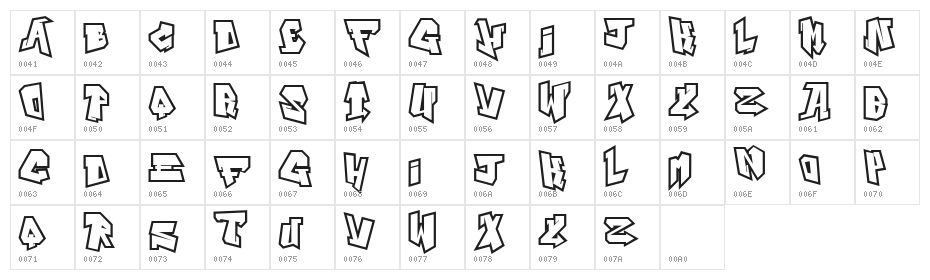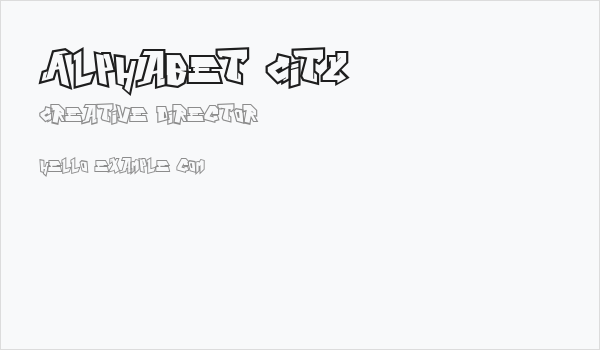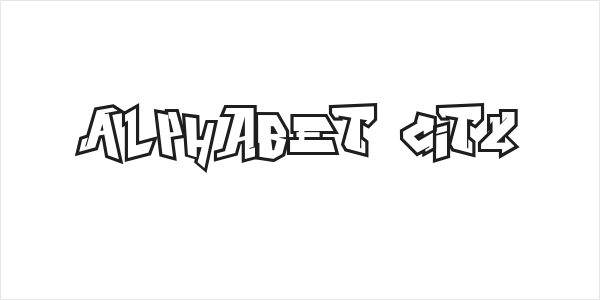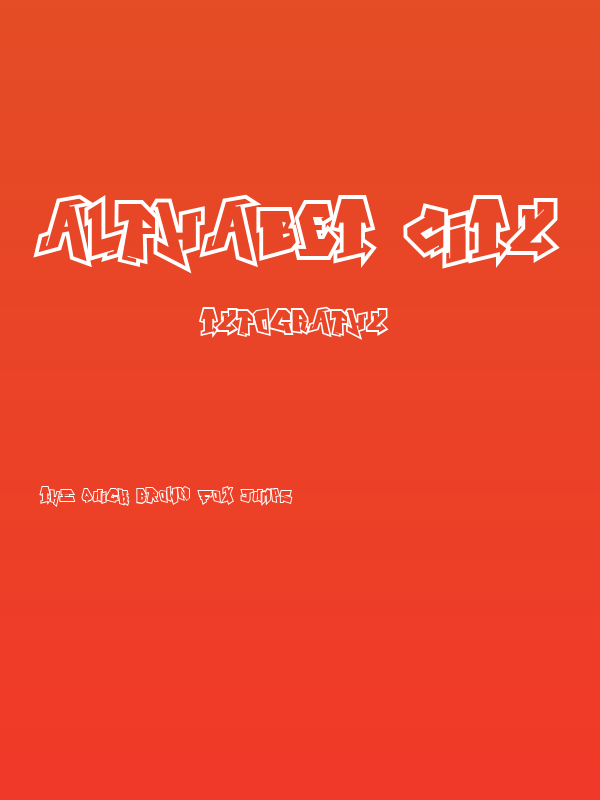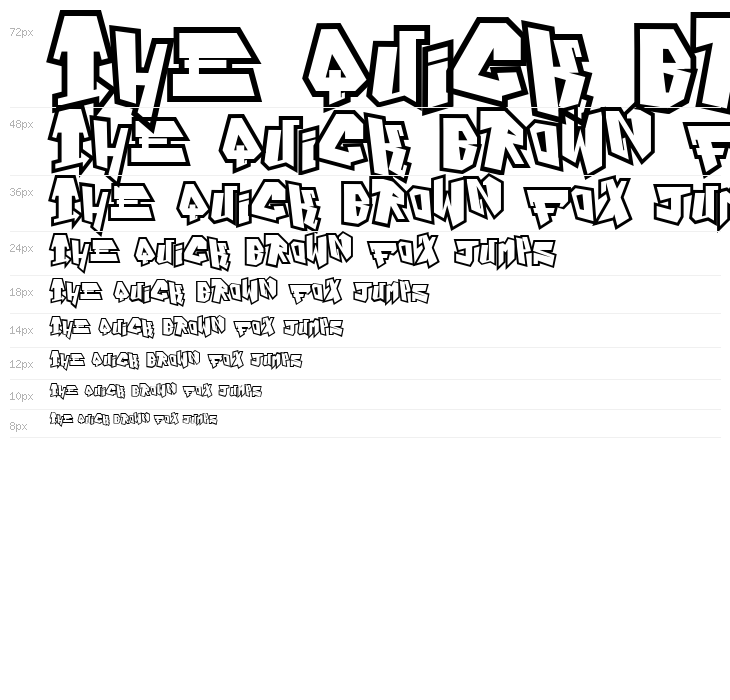
Alphabet City Font
Alphabet City Description
This font features a bold, graffiti-inspired style with sharp, angular edges and a three-dimensional appearance. The letters are outlined with a thick black border, giving them a striking and impactful look. The design is reminiscent of urban street art, with a playful yet edgy aesthetic. Each character is uniquely stylized, maintaining a consistent theme across the alphabet. The font's dynamic and energetic vibe makes it suitable for projects that require a modern and rebellious touch.
| Use Case | Logos, Headlines, Posters |
| Proposed Projects | Ideal for street art designs, urban-themed posters, music album covers, and edgy branding projects. |